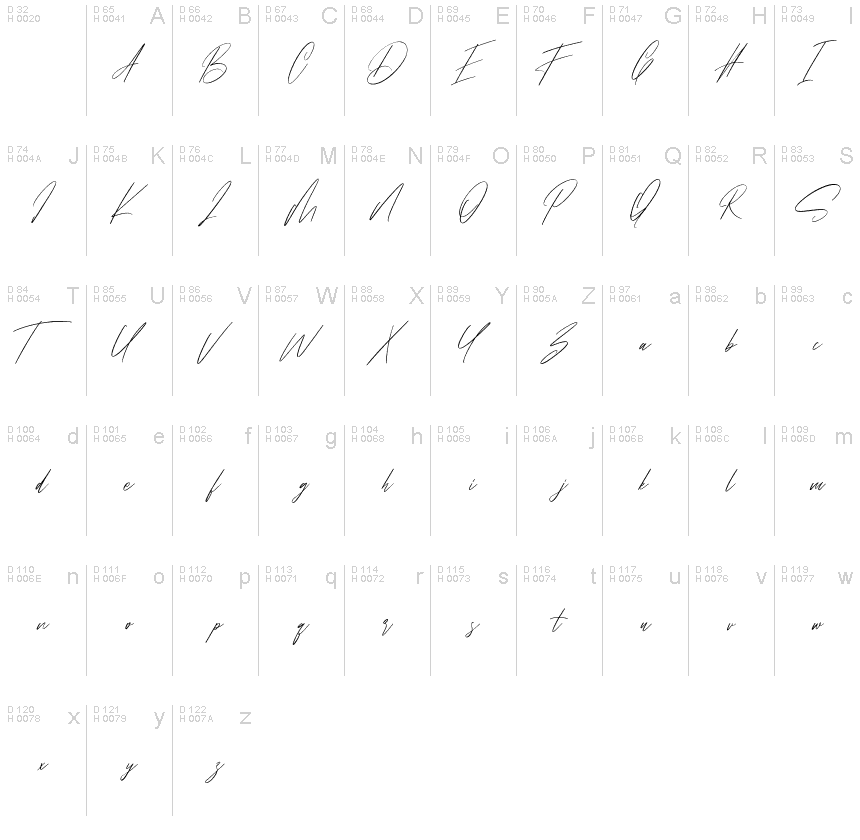
Pollet Free Regular
Pollet, the exquisite handwritten signature font designed by Maulana Creative, is a perfect fit for any project that requires an elegant and sophisticated touch. Its extra-light weight and condensed width make it ideal for creating striking headlines or adding a touch of refined professionalism to your branding materials. Whether you're designing wedding invitations, luxury fashion logos, or high-end restaurant menus, Pollet will elevate your designs and leave a lasting impression on your audience. With its unique blend of personality and professionalism, this font is sure to become a staple in any designer's toolkit.